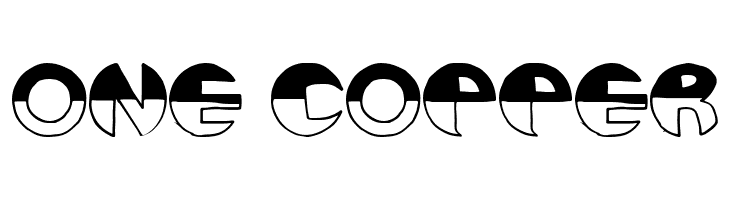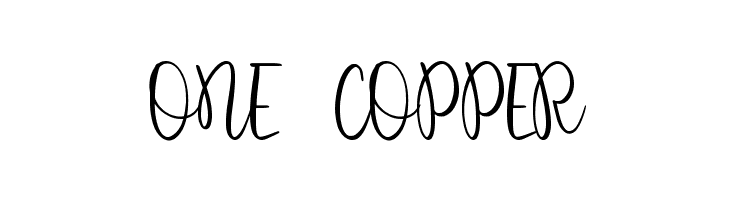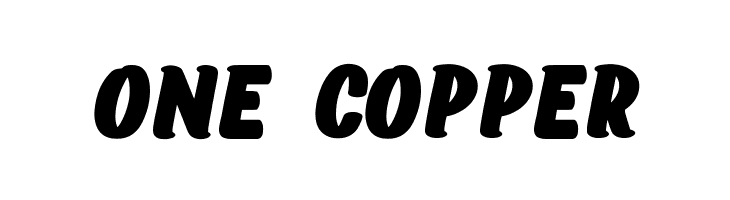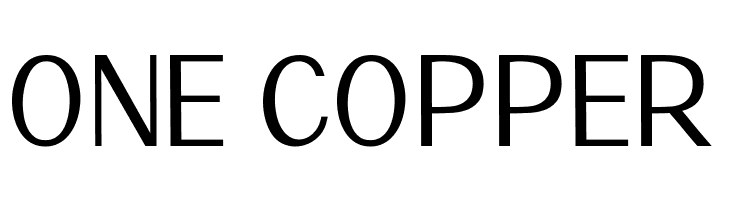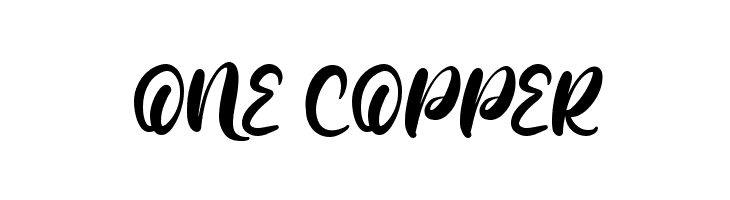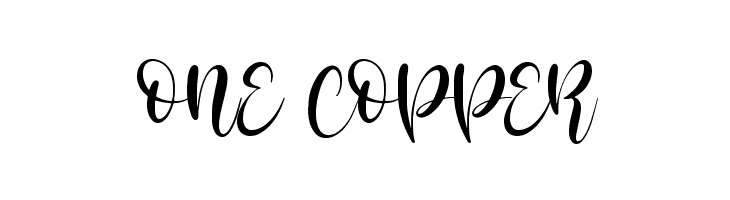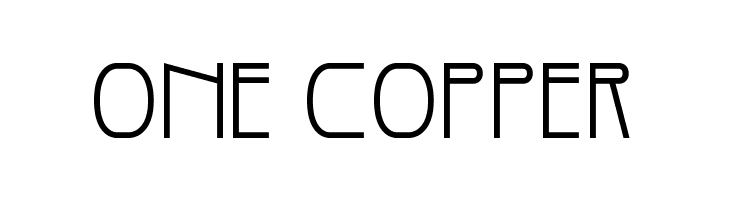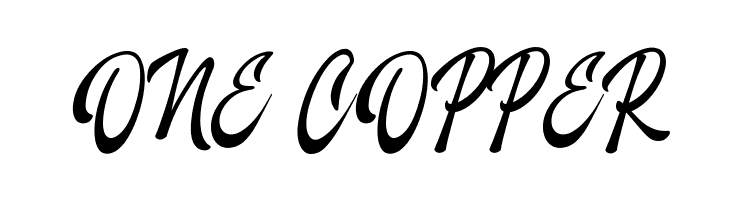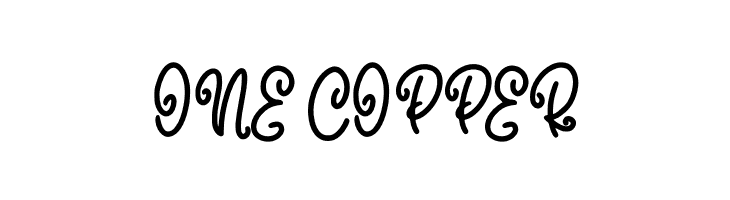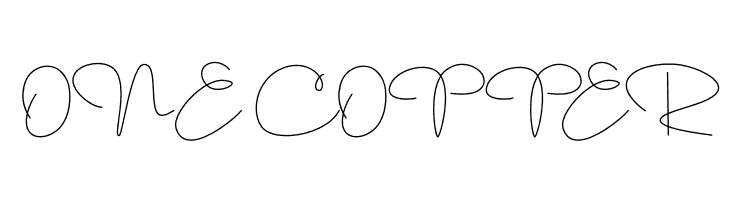
A flowing, cursive font with elegant and sophisticated styling.
A charming script font with elegant swirls and a playful flair.
A dynamic and flowing script font with elegant cursive letterforms.
An elegant script font with flowing, interconnected letters and a sophisticated style.
A cursive, calligraphic font with elegant loops and artistic flair.
A modern, elegant handwritten font with fluid strokes and graceful curves.
An elegant and flowing script font with intricate, looping letterforms.
An elegant cursive font with flowing, sophisticated strokes.
A dynamic and expressive script font with fluid, cursive strokes.
A modern, geometric font with clean lines and sharp angles.
An elegant cursive font with decorative flourishes and a sophisticated style.
A playful and elegant handwritten script font.
An elegant, flowing script font with a sophisticated, handwritten style.
A graceful and flowing script font with elegant, continuous strokes.
A lively and expressive script font with fluid, dynamic strokes.
A bold, cursive script font with elegant, flowing strokes.
A dynamic and elegant script font with flowing, cursive letterforms.
A graceful script font with flowing, interconnected letters and elegant flourishes.
An elegant and sophisticated script font with decorative flourishes.
A dynamic handwritten font with elegant, flowing letterforms and varying stroke thickness.
A flowing, elegant script font with a natural handwritten style.
A bold, geometric font with dynamic shapes and creative negative space.
An elegant script font with flowing strokes and sophisticated curves.
A bold, flowing script font with a modern, elegant style.
A playful, whimsical script font with decorative swirls and a handwritten feel.
A bold, rounded, and playful font with consistent stroke width.
A bold, distressed font with a rugged, textured style.
A modern sans-serif font with a clean, rounded style.
A dynamic and expressive handwritten font with fluid, energetic strokes.
A flowing, cursive font with elegant loops and artistic flourishes.
Expressive, casual handwritten script with tall, flowing letters.
A playful and elegant handwritten script font with flowing, connected letters.
An elegant and flowing script font with intricate loops and swirls.
A graceful script font with flowing, interconnected letters and a sophisticated style.